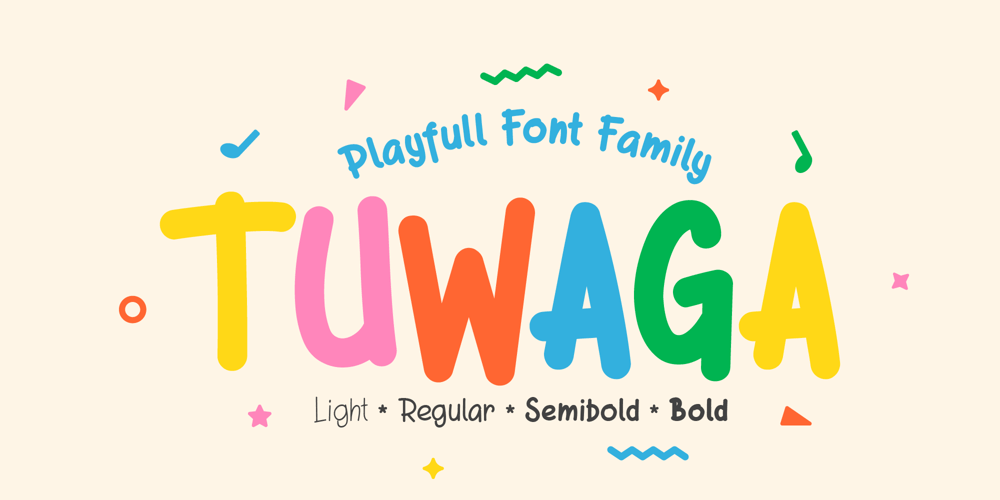
Tuwaga Font Family was designed by Manzur Ghozaali and published by Ghozai Studio. Tuwaga contains 8 styles and family package options. Tuwaga is a simple sans display font with a handwriting feel. Tuwaga comes in a wide range of styles from light to bold. Tuwaga give playfully look on your design. Tuwaga is ideal for festivals, carnival themes, headlines, titles, signage, branding, and strong designs that require fun effects. Enjoy!